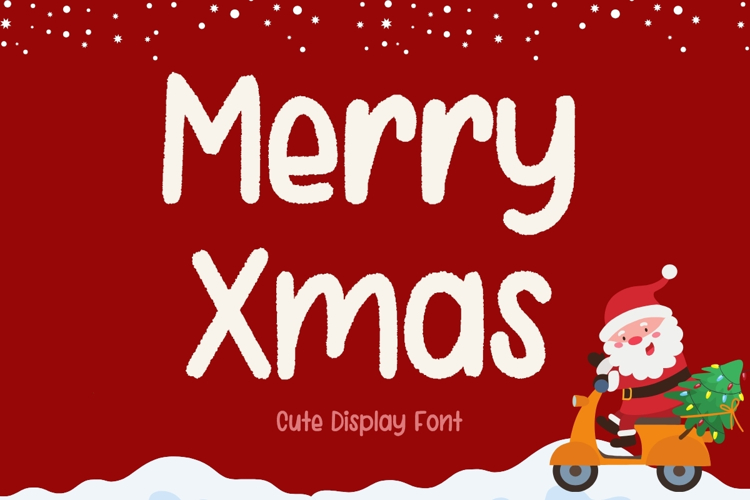
Celebrate the holiday season with Merry Xmas, a cute handwritten font designed to bring warmth and fun to your creative projects. Its playful handwritten style is easy to read and perfect for both holiday and everyday designs.
This font is great for creating Christmas crafts, classroom materials, greeting cards, gift tags, party decorations, stickers, and gifts.